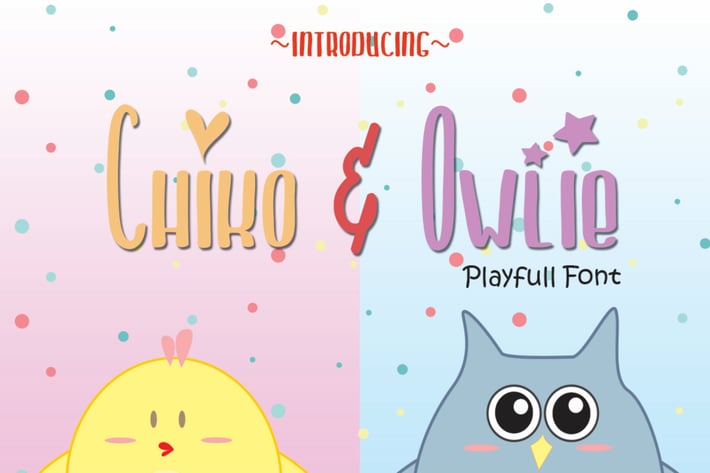
Chiko & Owlie - Cute Font
Chiko & Owlie is a cute Playfull font. It has a sweet, smooth, and youthful touch that will be a great choice for any design projects, such as children stuffs, invitations party cards, decoration, posters, quotes, or even just a simple crafts!